26 Modern Sans Serif Fonts for Small Brands: Clean, Elegant and Geometric Styles for Logos and Websites
Sans serif fonts are everywhere: on apps, websites, packaging and almost every modern logo. That is exactly the problem. When a small brand uses the same few free sans serifs as everyone else, it blends in. This list is for the moment you want a clean, modern sans that still looks like yours.
Every font here was picked from Creative Fabrica and is shown with its own preview. They are grouped into modern, clean, elegant and geometric sans serif fonts, with notes on where each one works and where it doesn’t. One of them, Engelsgold Font, is part of Creative Fabrica’s free font collection.
Modern Sans Serif Fonts
Bold, confident sans serifs with a personality of their own. These work for logos, headlines and packaging when you want a brand to look current without reaching for the same few free fonts everyone uses.
1. Godthem Font
by Glyphonic
Best For: streetwear, music posters, bold social headlines
Godthem Font is a heavy, rounded display sans set in lowercase. The preview stacks the name twice in dark grey on light paper, with a worn, printed texture. The author describes a bold display sans with distressed grunge textures and a rebellious character.
The built-in grunge gives it an edge that clean sans serifs don’t have, so it suits streetwear, music posters and bold social graphics. For a clean brand, choose Rotalum Font or Olline Font instead.
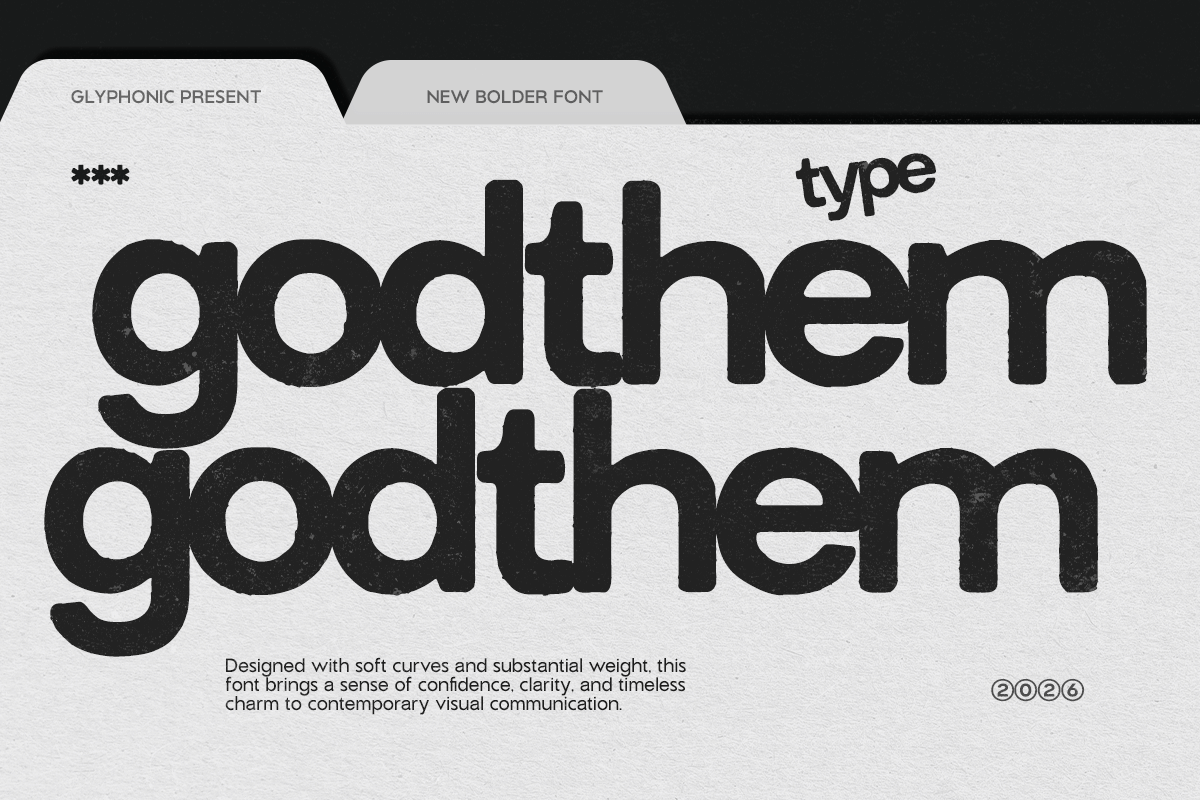
2. Rotalum Font
by Glyphonic
Best For: brand systems, websites, packaging
Rotalum Font is a clean modern sans with slightly softened ends. The preview writes “Rotalum Modern Sans” in dark brown on cream and lists a range of weights from thin to extra bold. The author describes it as an adaptive modern sans serif with versatile weights.
Having several weights in one family means you can build a whole brand with it: bold for the logo, regular for the website, light for small print. It is the most practical workhorse in this group.
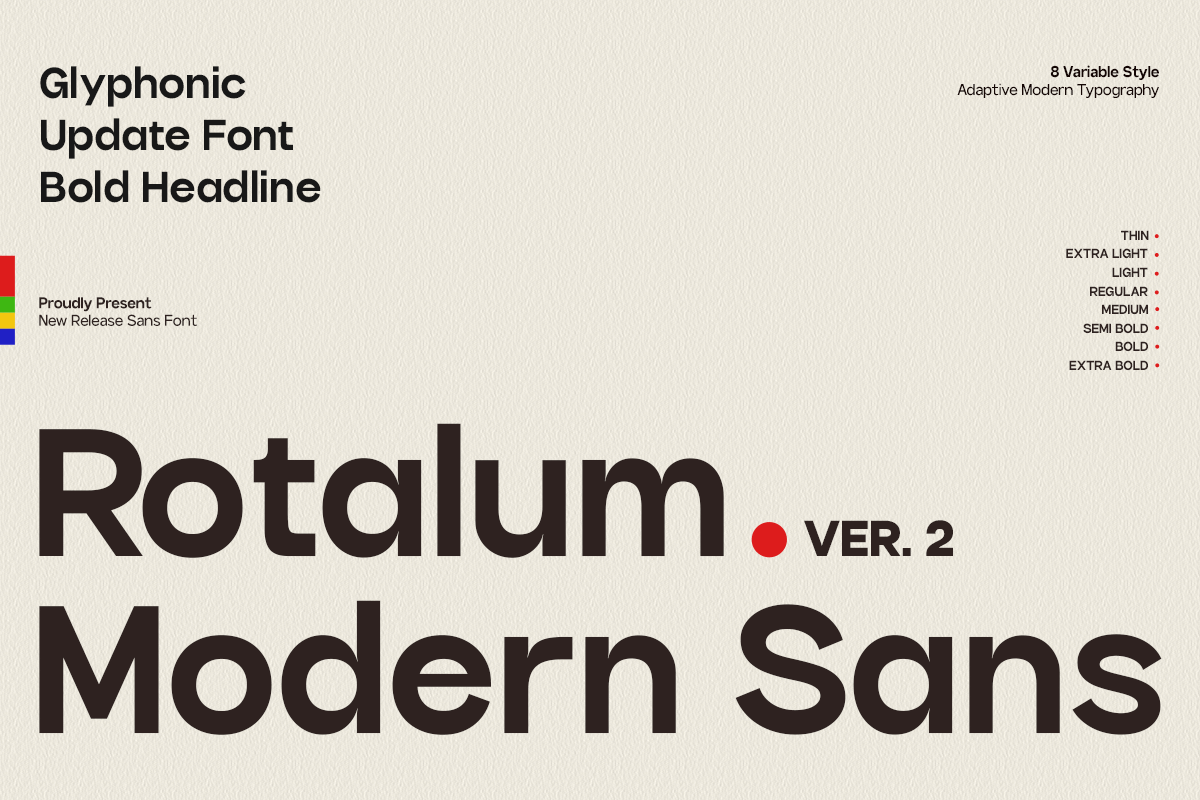
3. Juble Font
by zafira.type
Best For: playful brands, kids’ products, stickers
Juble Font is an ultra-heavy sans with soft, rounded shapes. The preview writes the name in black on bright pink, labelled Black, with the lines “playful shapes for modern design” and “a fun and friendly display font”. The author describes rounded shapes that feel friendly and approachable.
It is loud and cheerful, which suits snack packaging, kids’ products, sticker shops and social media headlines. Use it for short words only, because the heavy shapes fill up quickly.
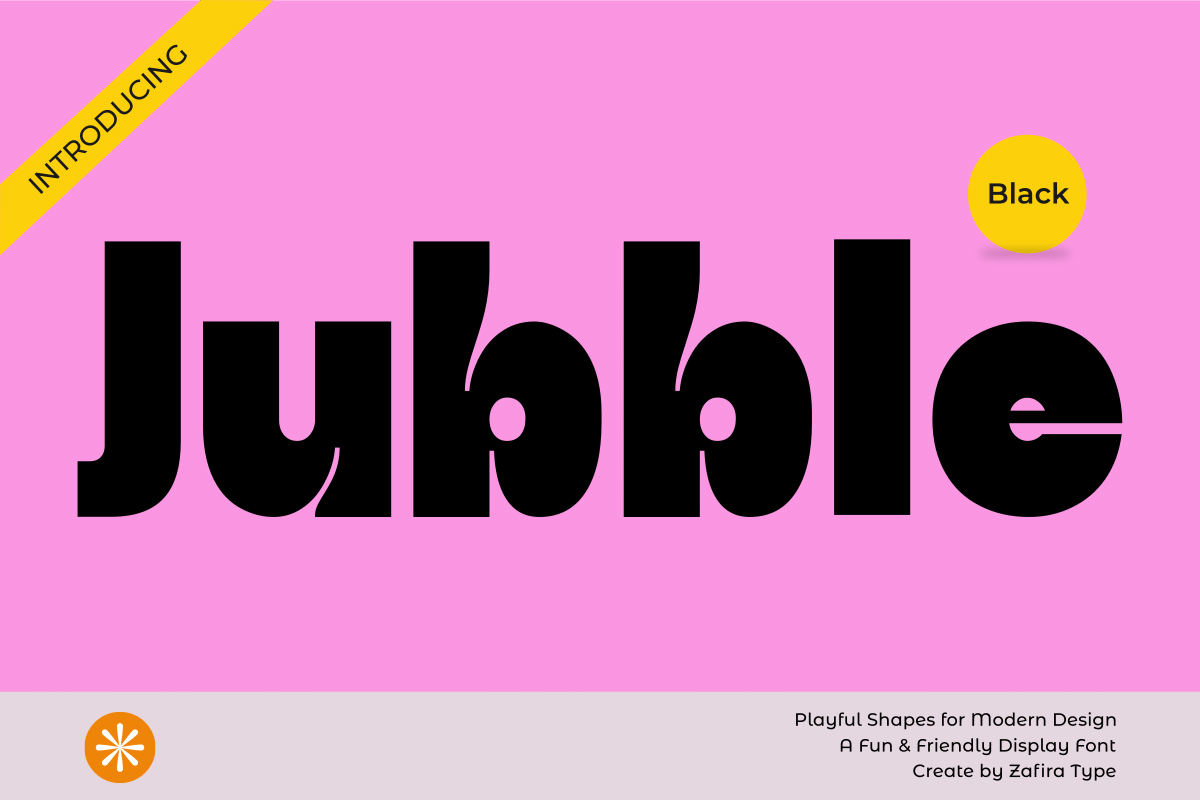
4. Akira Expanded Font
by fadielm70
Best For: headlines, sports and tech brands, event posters
Akira Expanded Font is a very wide, heavy sans set in capitals. The preview shows it in white on black and names three styles: Bold, Super Bold and Outline. The author notes that the three styles can be mixed and suggests it for headlines of all sizes.
The extra width makes even a short word look powerful, which is why it works for event posters, sports brands and tech headers. The outline style is useful for layered titles with a solid word behind it.
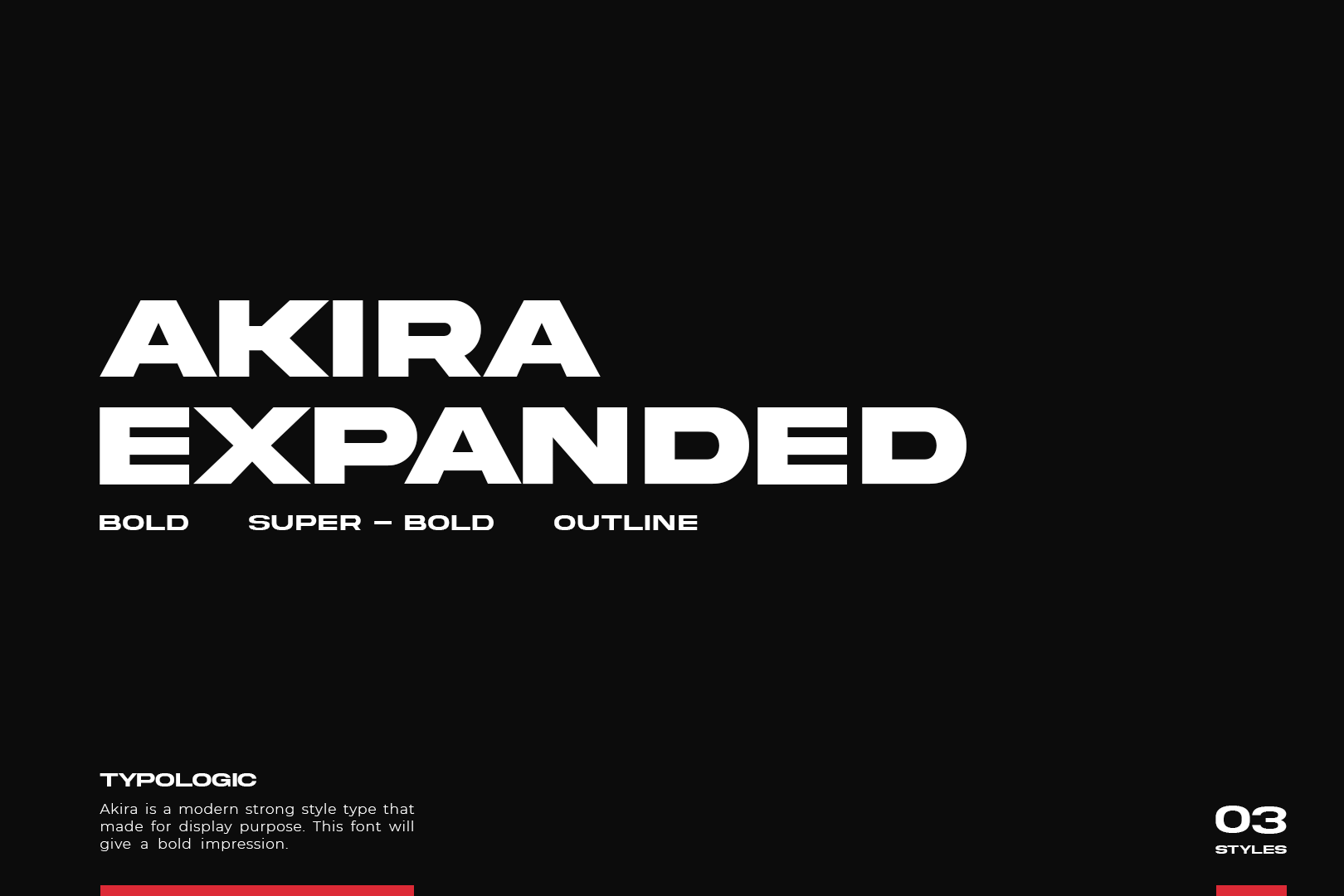
5. Olline Font
by product.rasiostudio
Best For: food brands, café logos, bold packaging
Olline Font is a bold modern sans with round letters and open shapes. The preview writes “Olline” in bright red on black, labelled as a bold modern sans serif. The author mentions upper and lowercase letters in a geometric style.
It has the friendly roundness of popular app logos, but with its own shapes, so a small food or café brand can look modern without looking like every other shop. It stays clear at small sizes on labels.
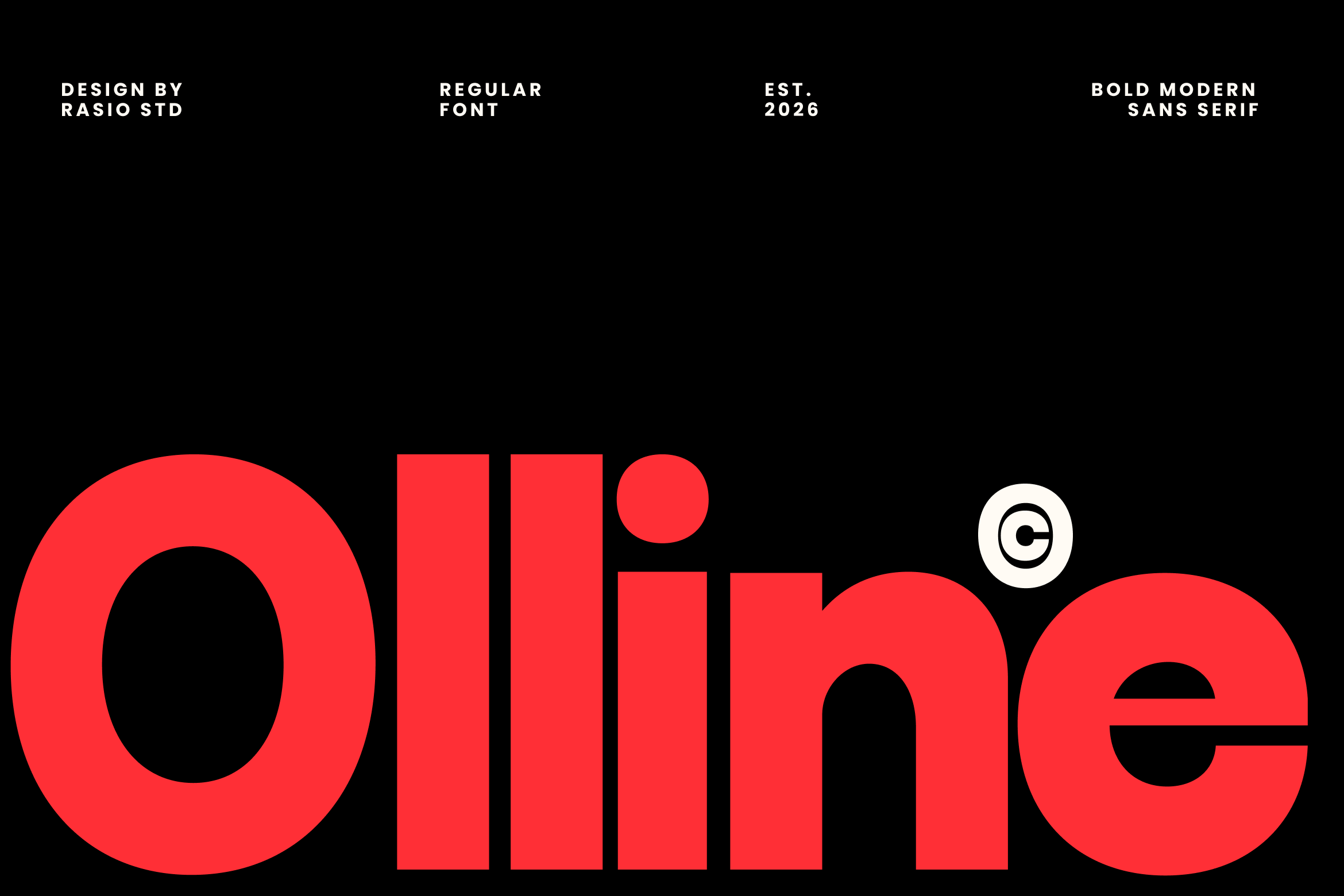
6. Ague Black Font
by zafira.type
Best For: fashion headlines, magazine covers, logos
Ague Black Font is a heavy modern sans with sharp cuts and a round, open g. The preview sets “Ague” in cream on a black-and-white photo, labelled as a modern sans serif font in the Black weight. The author describes a clean and modern sans designed with simplicity and elegance.
Can I use these fonts for commercial projects?
Look Different From Everyone Else
Type your brand name in three fonts from this list and put it next to the same name in the free sans serif you use now. If one of them makes the name look more like a brand and less like a template, that is the one to keep.